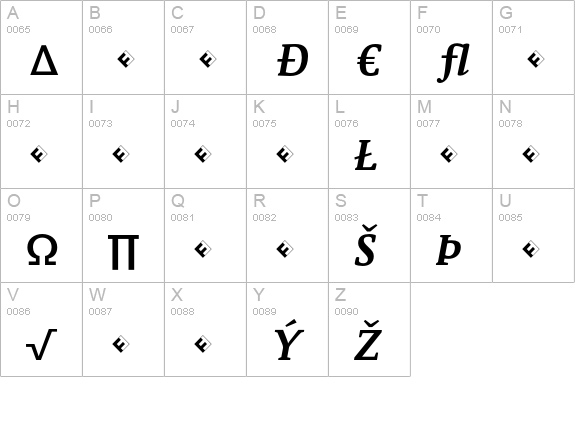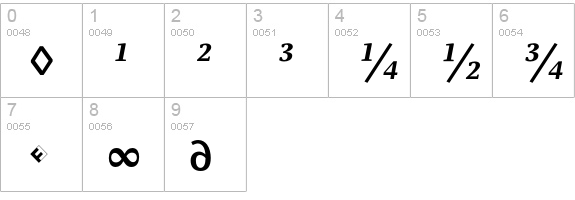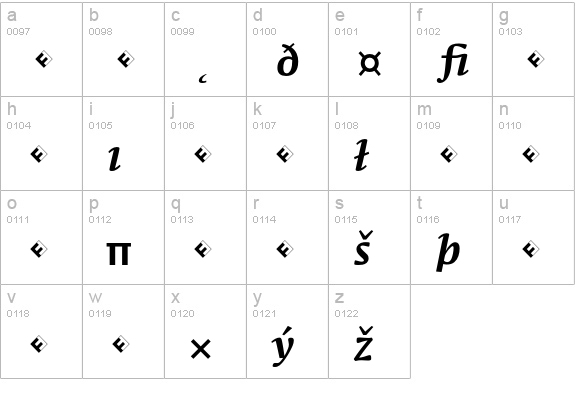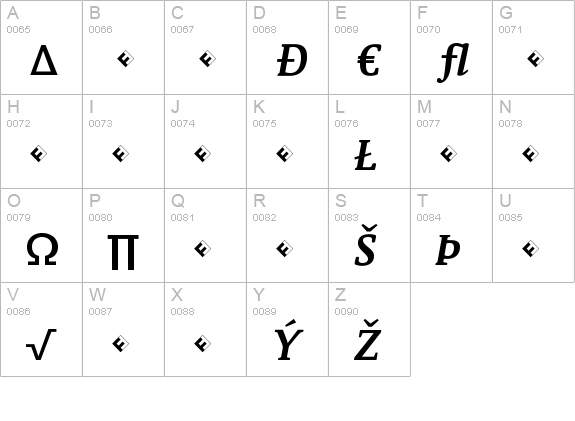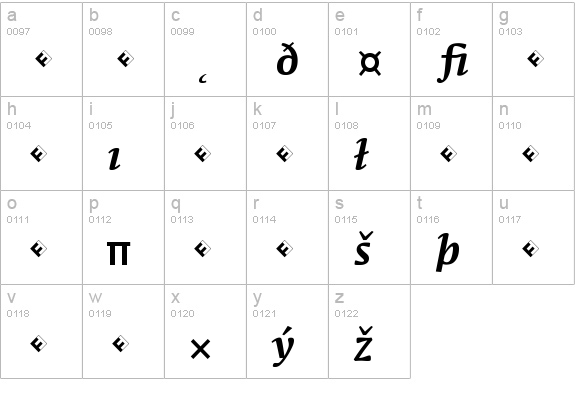
Parable-BoldItalicExpert Font Details
Parable-BoldItalicExpert is a striking and elegant font that exudes confidence and sophistication. Its bold and italic design adds a touch of flair and emphasis to any text, making it perfect for attention-grabbing headlines, titles, and logos. With its expertly crafted curves and unique letterforms, Parable-BoldItalicExpert captures attention and commands authority. Its versatility allows it to be used in a wide range of design projects, from magazine layouts to product packaging and beyond. One of the most appealing aspects of Parable-BoldItalicExpert is that it is available for free download at FontsMarket.com. This means that designers, creatives, and typographers can easily access and utilize this incredible font without any financial constraints. Whether you're working on a professional project or simply want to elevate your personal designs, Parable-BoldItalicExpert is the perfect choice. Its bold and italic nature combined with its expertly designed details make it a standout font that is sure to make an impact.